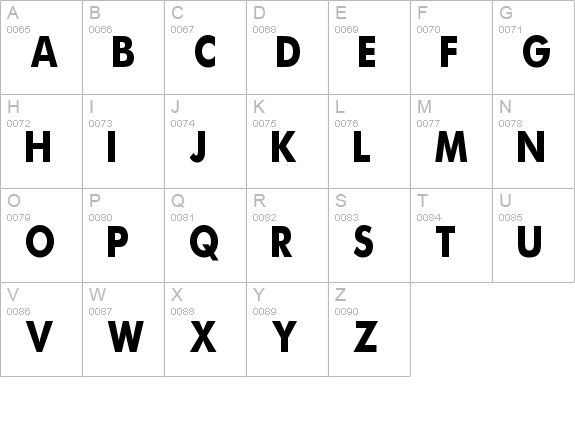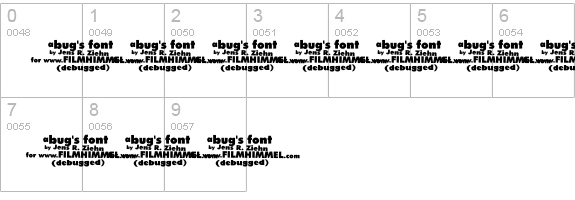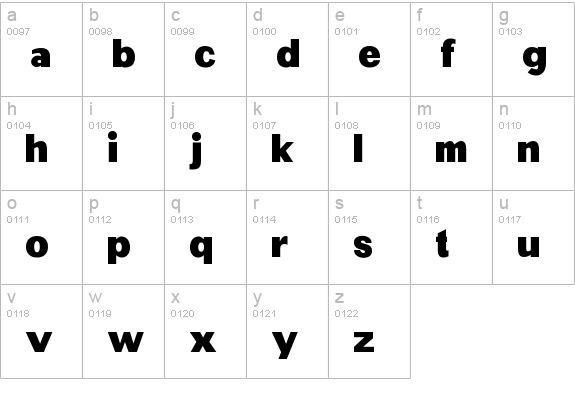
a bug's life - debugged Font Details
Introducing the captivating "Bug's Life - Debugged" font, a delightful typeface that brings a touch of whimsy and imagination to your designs. Perfect for adding a playful and lighthearted vibe, this font is here to infuse your projects with a bug's perspective on life. Bug's Life - Debugged font has undergone meticulous debugging to ensure a flawless and seamless experience. Every little detail has been fine-tuned, making this font not only visually stunning but also incredibly user-friendly. Say goodbye to frustrating glitches and hello to smooth and effortless typography! What makes Bug's Life - Debugged font truly remarkable is that it is freely available to download at FontsMarket.com. Yes, you read that right - free! We believe that everyone should have access to high-quality fonts, and we're thrilled to offer Bug's Life - Debugged font at no cost to you. Now you can elevate your designs without breaking the bank. With its charming and quirky character set, Bug's Life - Debugged font will instantly inject personality into your projects. Whether you're working on a children's book, a fun advertisement, or simply want to add a touch of whimsy to your personal creations, this font is the perfect choice. The versatility of Bug's Life - Debugged font knows no bounds. It is equally at home in digital and print media, ensuring that your designs will shine no matter the medium. Its legibility and readability make it a breeze to use in headlines, body text, logos, and more. So why wait? Embrace the enchanting world of Bug's Life - Debugged font and let your creativity take flight. Download it for free at FontsMarket.com today and unlock a whole new dimension of design possibilities. Get ready to embark on an extraordinary journey with this bug-inspired typeface!